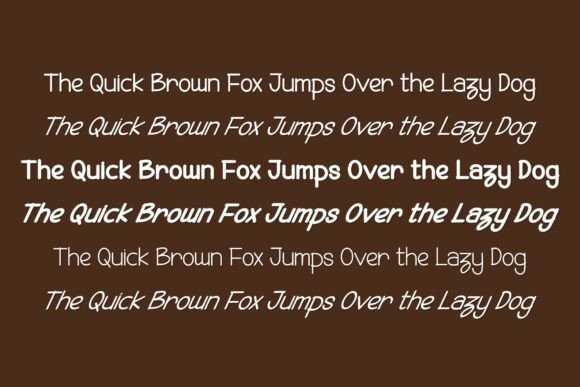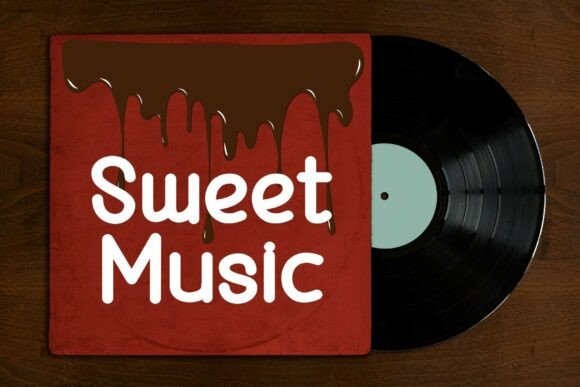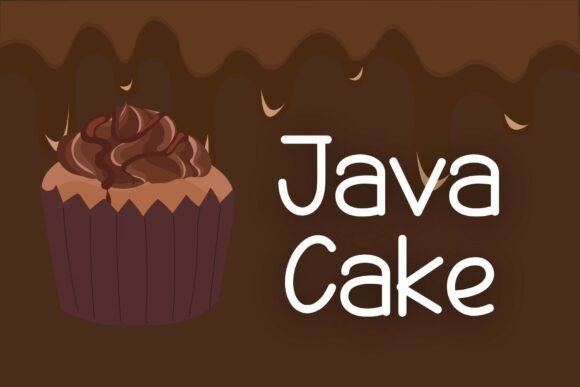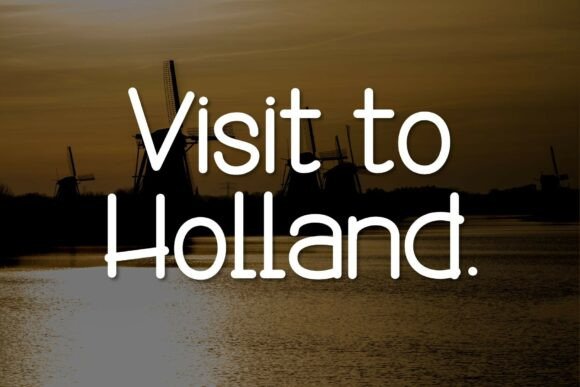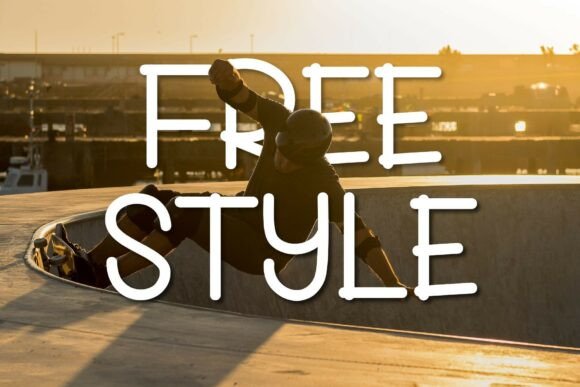
Introduction to Rolanzo Font
Discover Rolanzo – a sleek, meticulously-crafted sans-serif typeface with 6 distinct styles.
Each style offers a unique blend of sophistication and versatility, effortlessly enhancing your text with a clean and modern aesthetic Rolanzo’s range of styles makes it adaptable to a variety of design projects, truly setting it apart in the realm of sans-serif fonts.
Rolanzo Font offers exceptional quality and versatility, making it a valuable addition to your design toolkit. Whether you’re creating for personal projects or commercial use, Rolanzo Font delivers professional results.